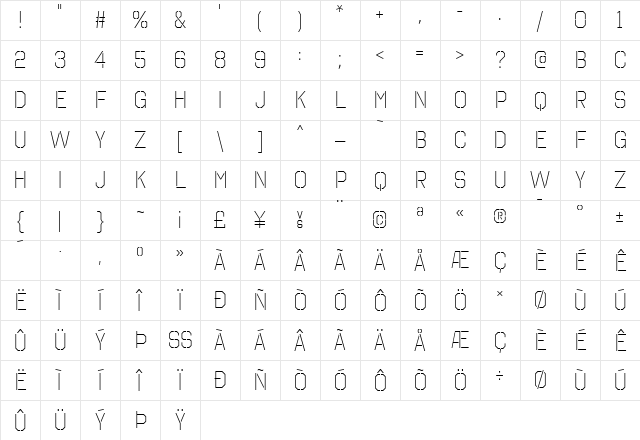
Complete Octin Stencil Light glyph index. Displaying only characters natively supported by Octin Stencil Light font.
Octin Stencil borrows the utilitarian aesthetic of stencil lettering, with its characteristic cutaways and no-frills construction lending an industrial edge. Its slender proportions lend an understated elegance to any composition.
Pro Tip: Use Octin Stencil at large sizes on packaging, posters, or apparel where the stencil cutaways read clearly. Avoid small sizes where those gaps become visual noise.